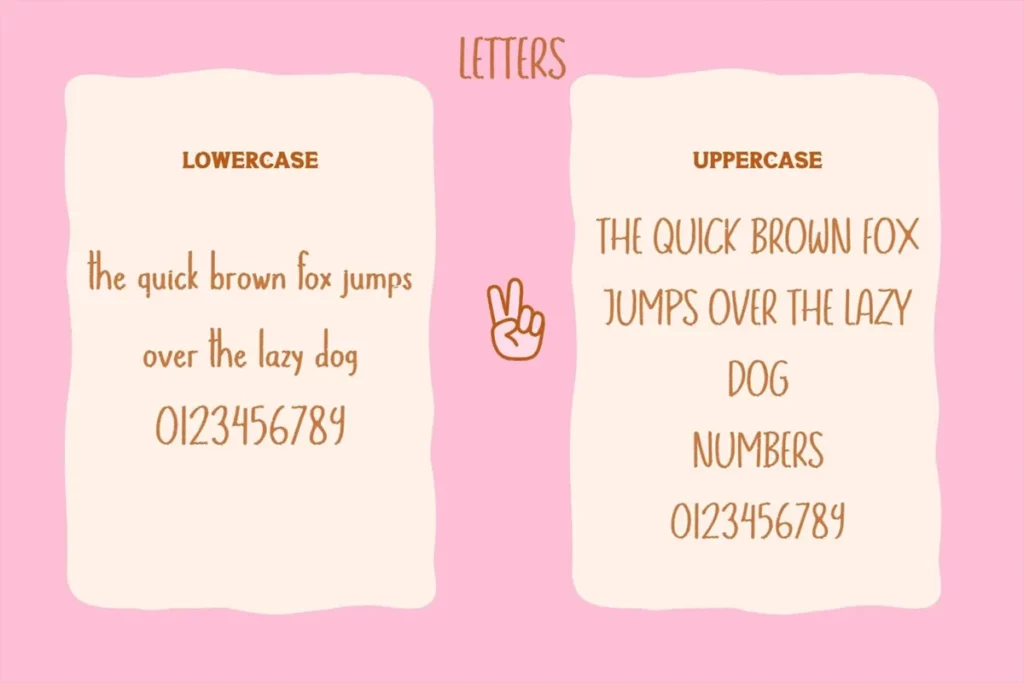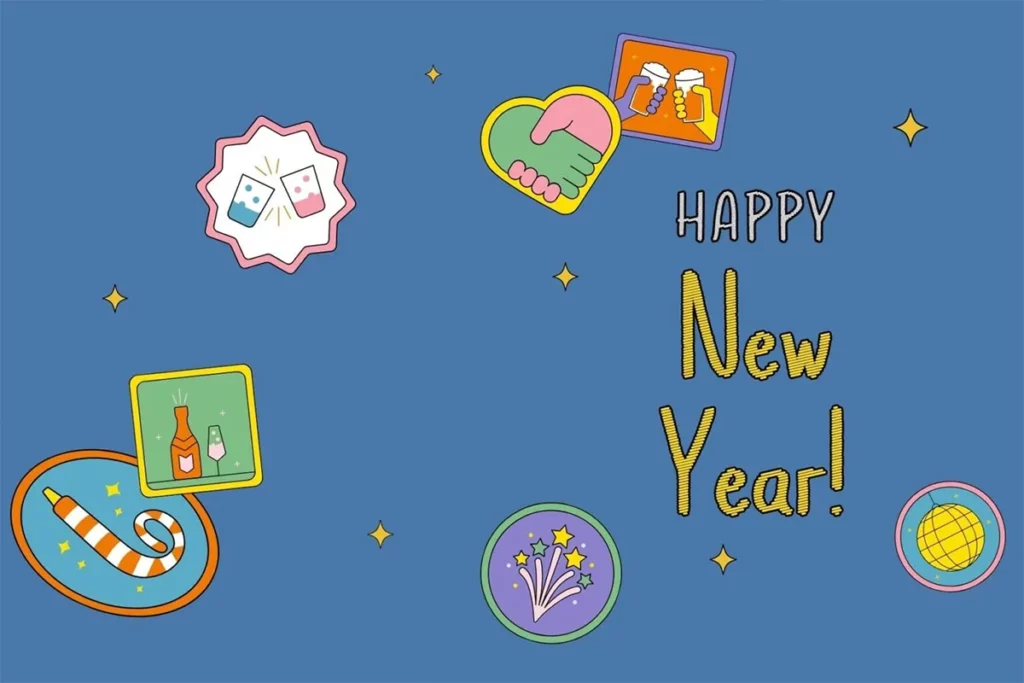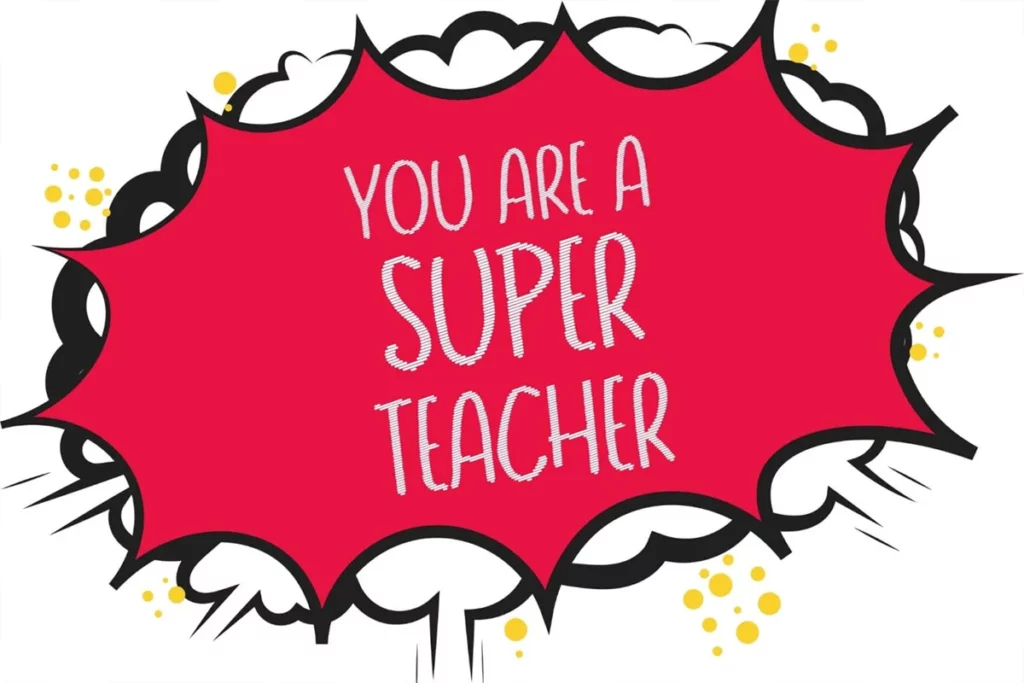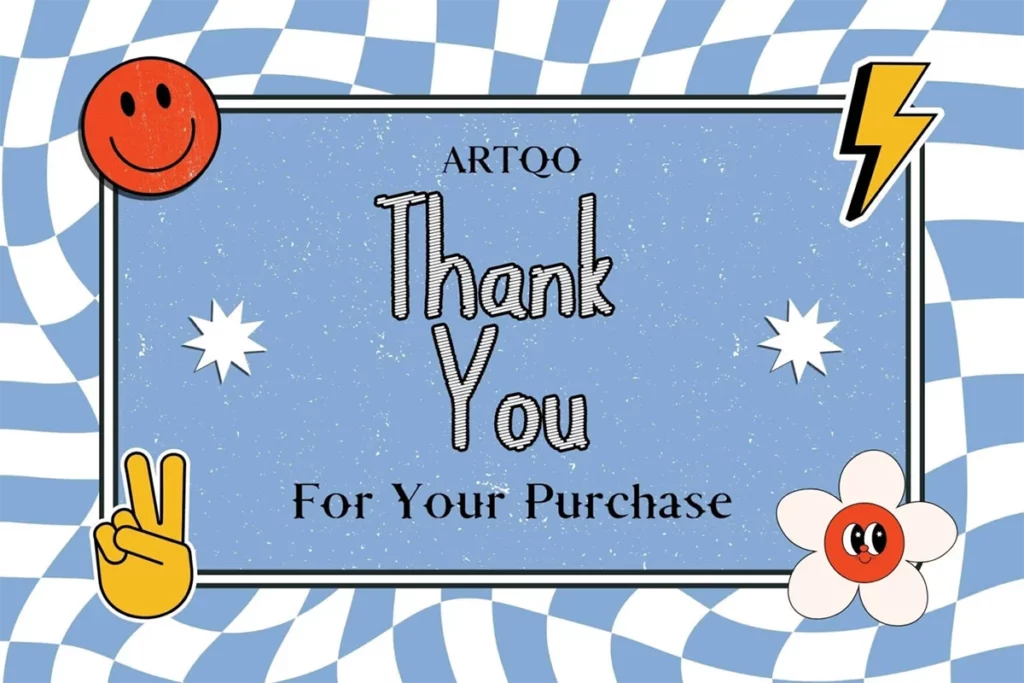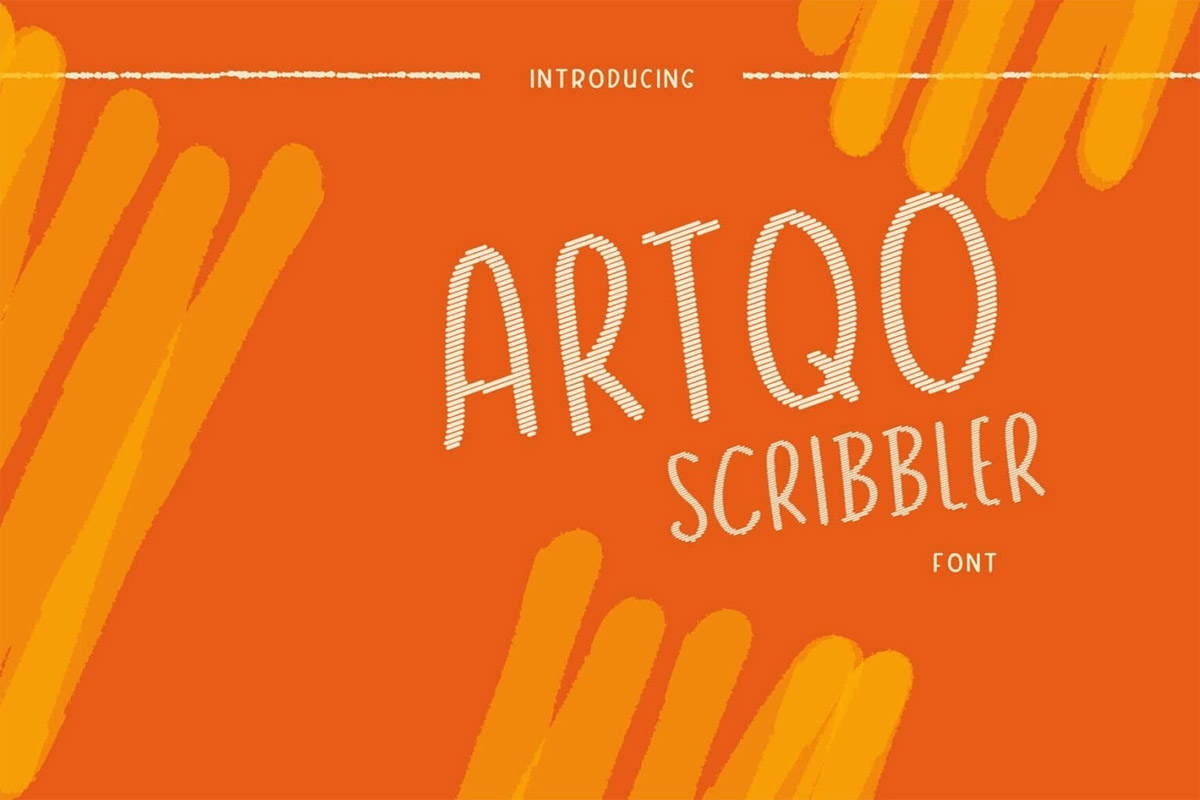
Artqo Scribbler Font
Introducing Artqo Scribbler font, a playful and creative font with a hand-drawn feel. It creates a charming, casual, and magical feel to your design projects, making it perfect for fun, informal, and creative uses. The irregular strokes give it a friendly and approachable vibe, ideal for kids’ products, greeting cards, invitations, and more. Whether you want to bring life to a birthday card or create an eye-catching poster, Artqo Scribbler is your go-to font for a relaxed and fun aesthetic.
Use Cases:
- Greeting Cards: The font works perfectly for birthday cards, holiday greetings, and thank you cards, bringing a personal and warm feel.
- Invitations: Whether it’s for a kids’ party or casual gathering, the playful strokes of Artqo Scribbler font make invitations stand out.
- Children’s Books: Its hand-drawn style is ideal for children’s books and educational materials, as it resonates well with a young audience.
- Social Media Graphics: Artqo Scribbler is also great for fun and vibrant social media posts, giving your text a creative, scribbled effect.
- Posters and Banners: Use it in promotional materials, posters, or banners to add a sense of friendliness and energy to your message.
- Custom Merch: This font would be perfect for merchandise such as t-shirts, mugs, or tote bags with playful quotes or artwork.